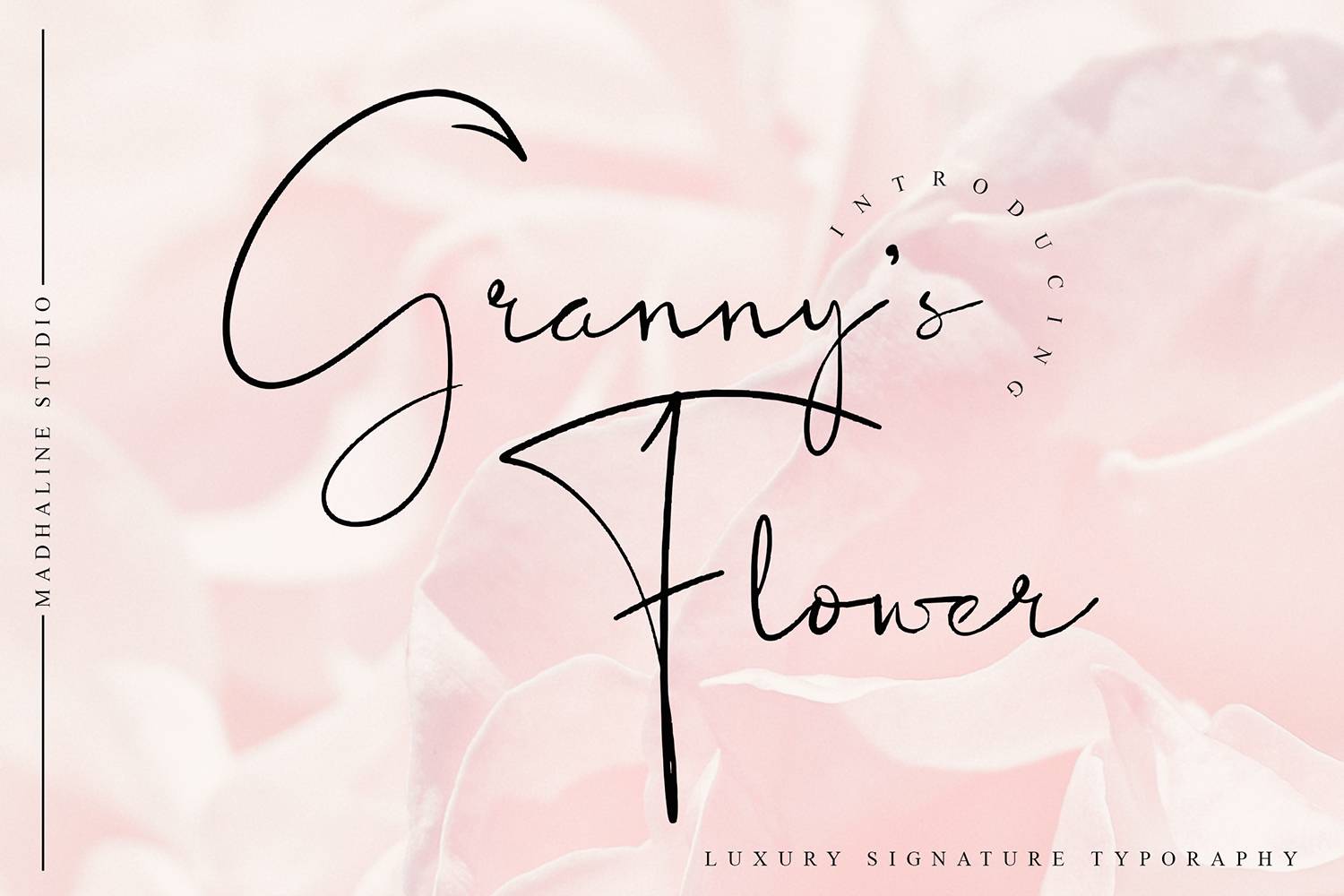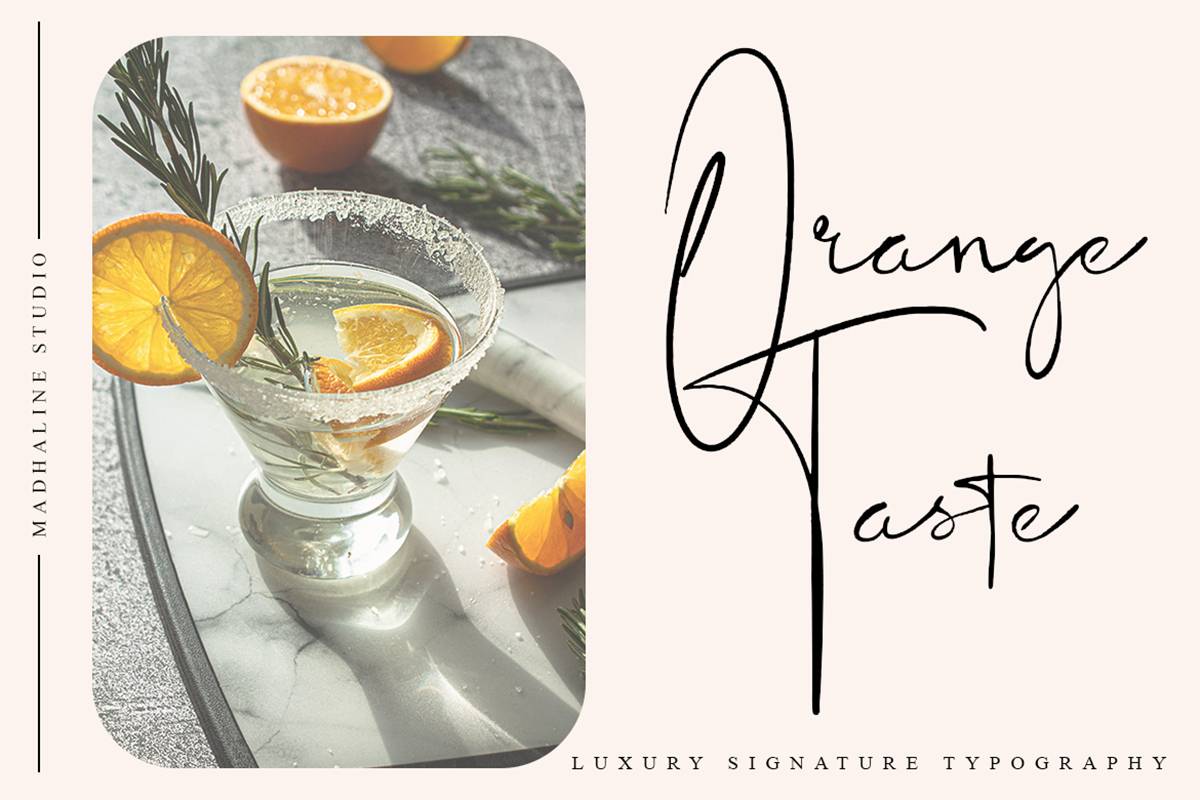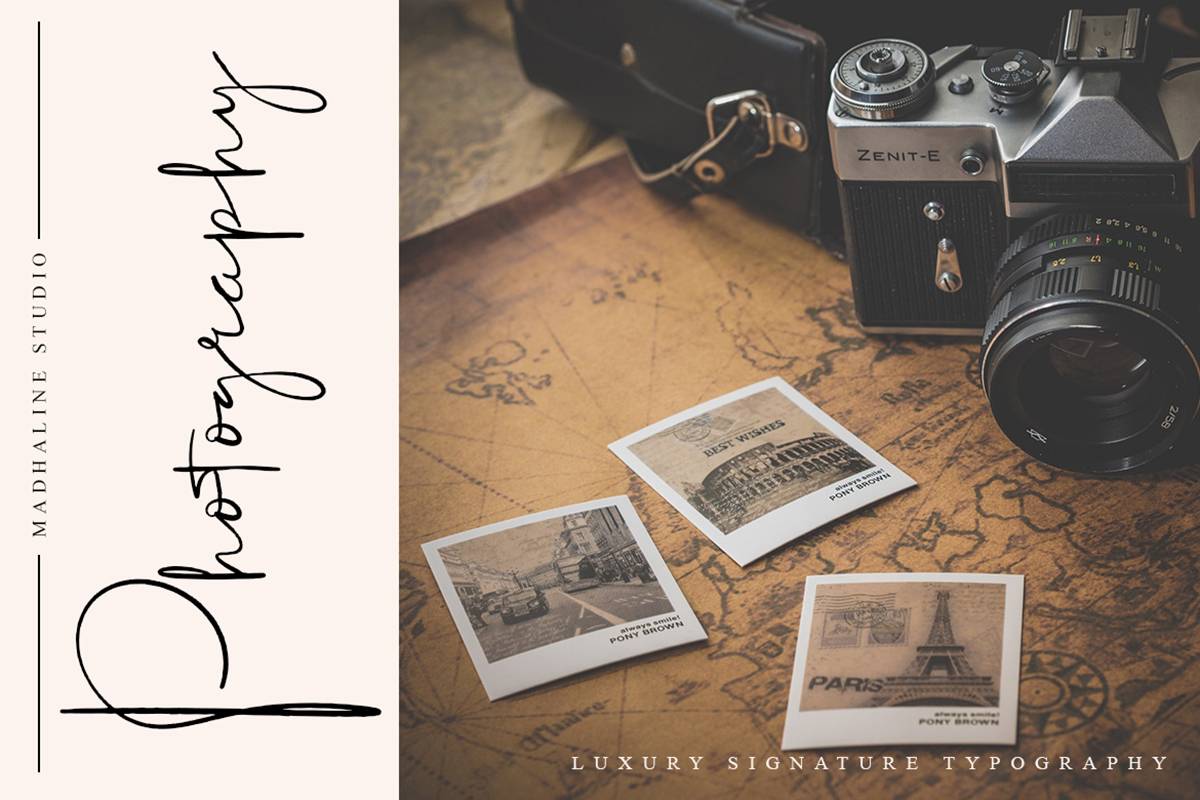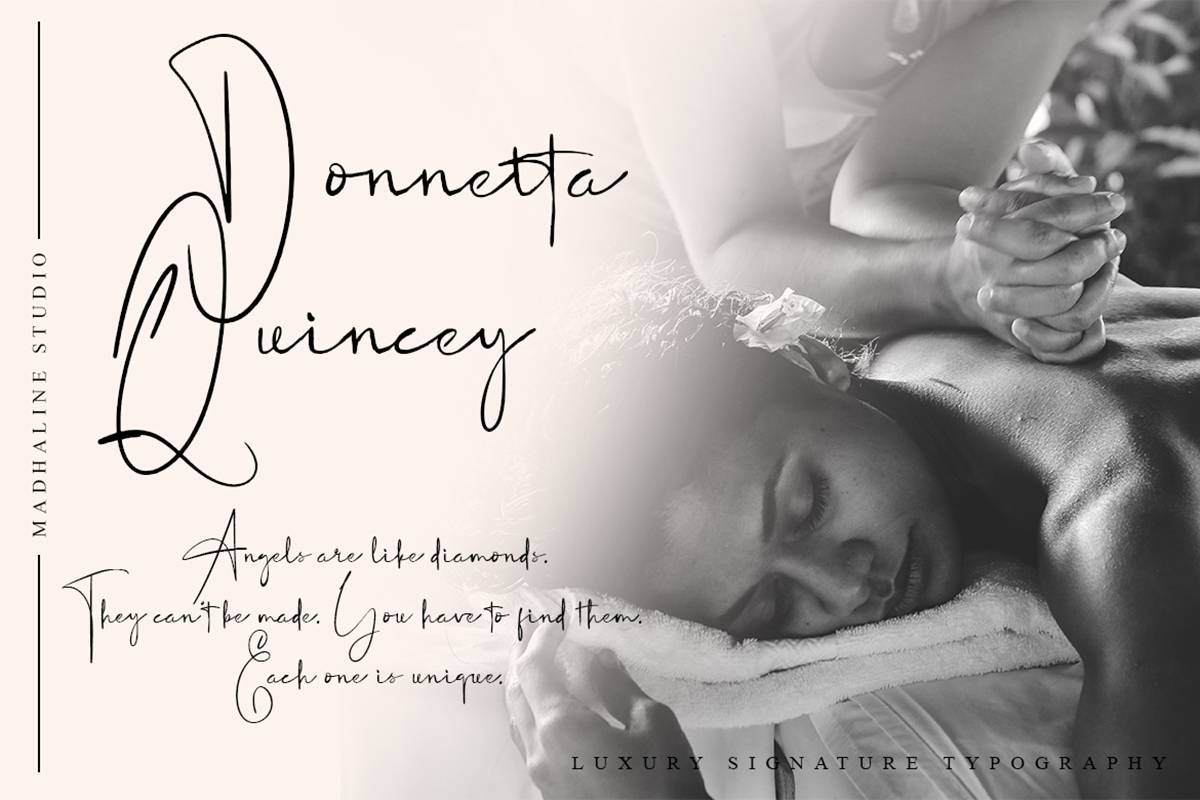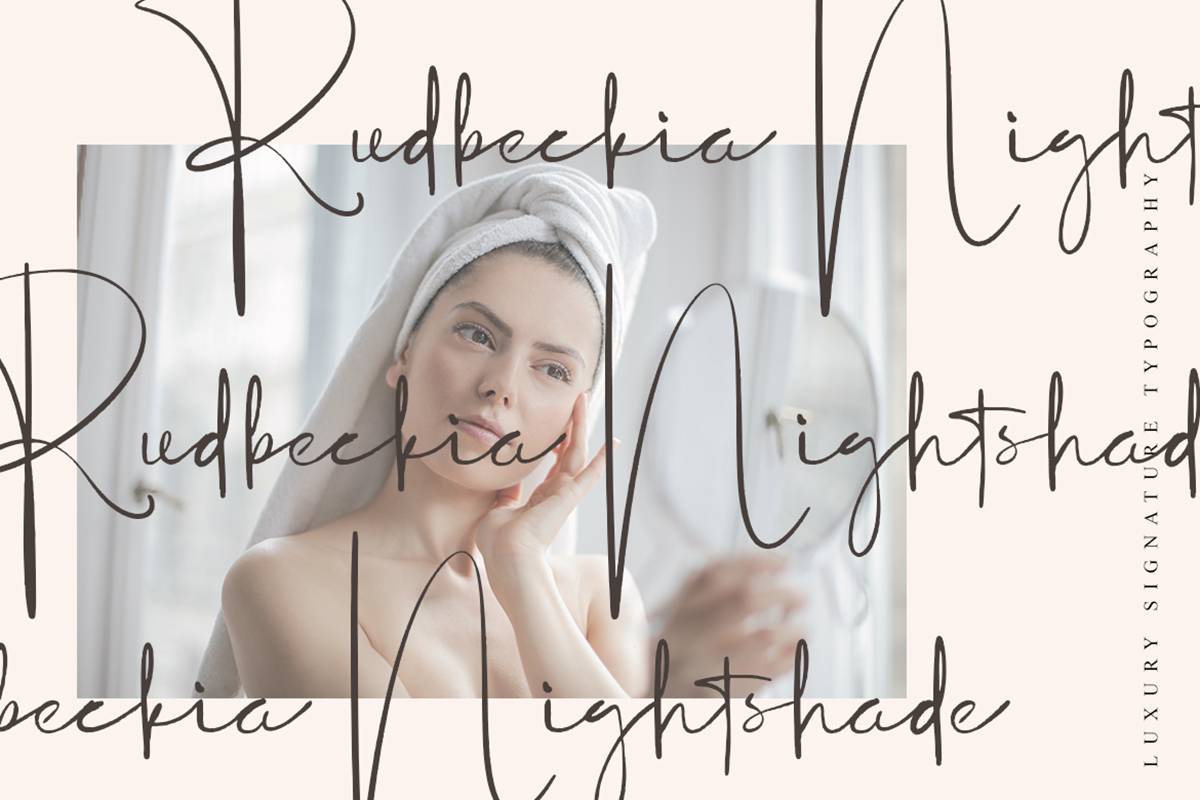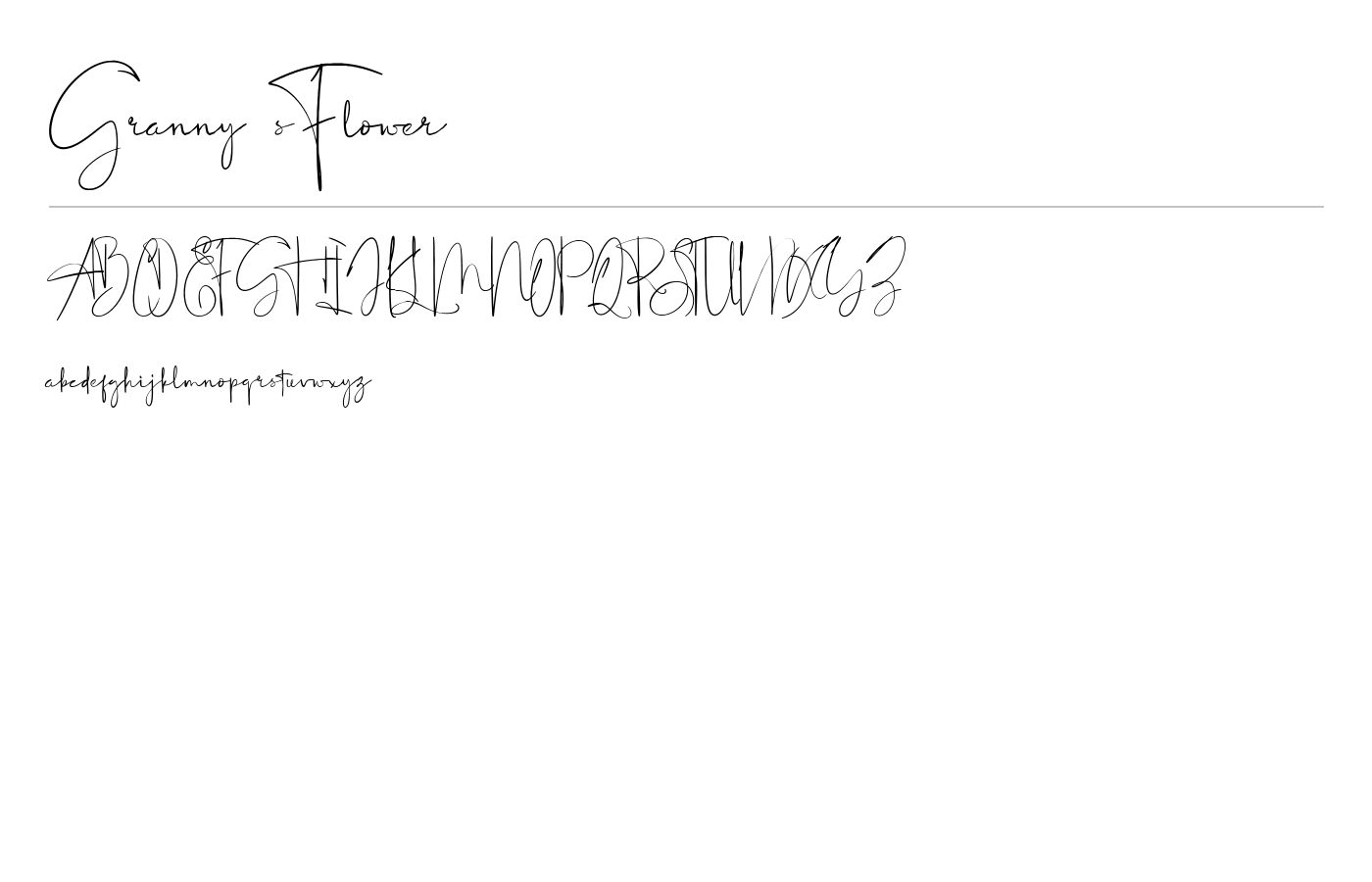
Granny’s Flower is a delicate handwritten script font characterized by its thin, flowing strokes and tall, narrow letterforms with a whimsical, airy feel. Its elongated uppercase letters and smooth, organic curves create a charming, playful personality perfect for elegant branding, invitations, and creative projects that seek a graceful yet casual touch. This font works best in decorative uses such as logos and headlines where its unique, artistic style can truly stand out.
Granny’s Flower Font
About Granny’s Flower Font